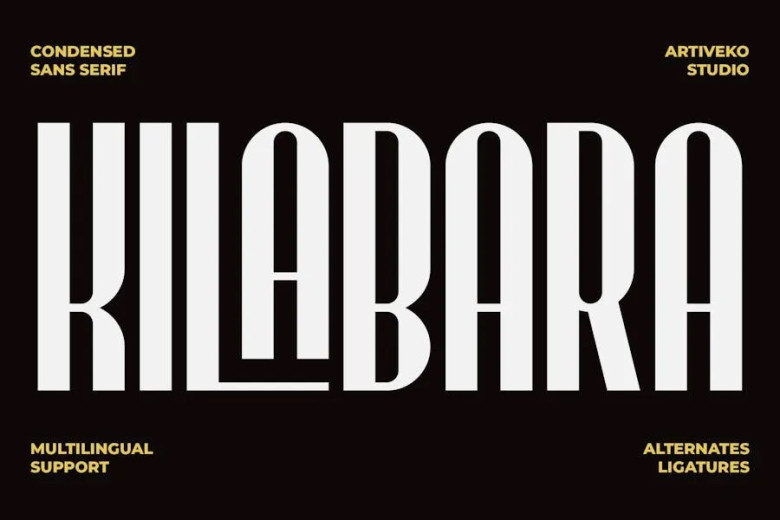
Kilabara Font
Kilabara is a Rustic Sans Serif Condensed Type Font. Therefore, fitting for posters, social media, branding, personal assignments, and other purposes. The free version offered all the letters of the English alphabet both upper and lower case and a few more special characters.
Kilabara Sans Serif Font